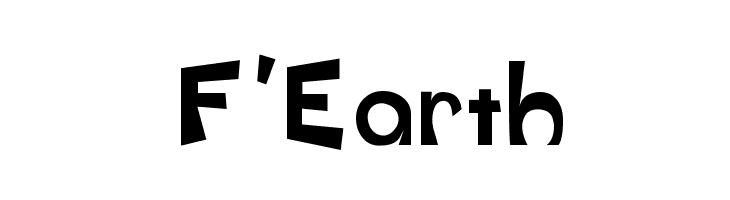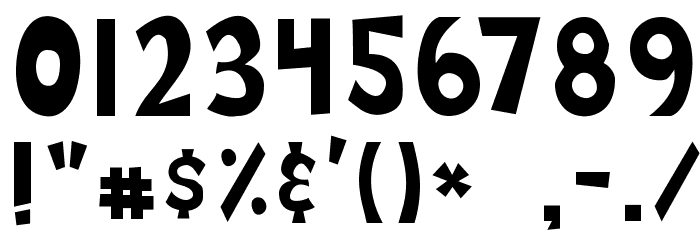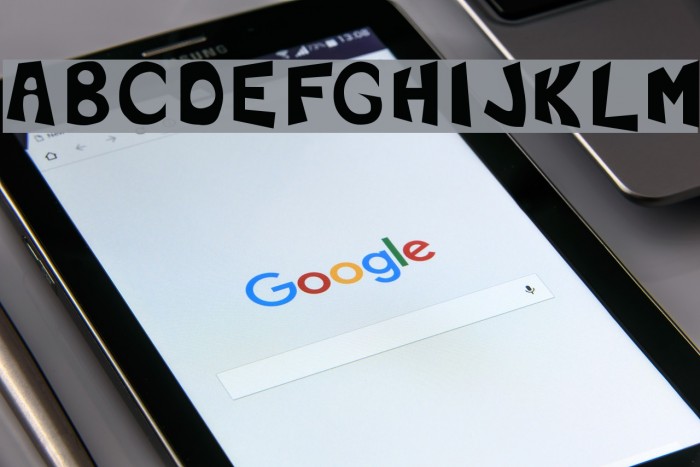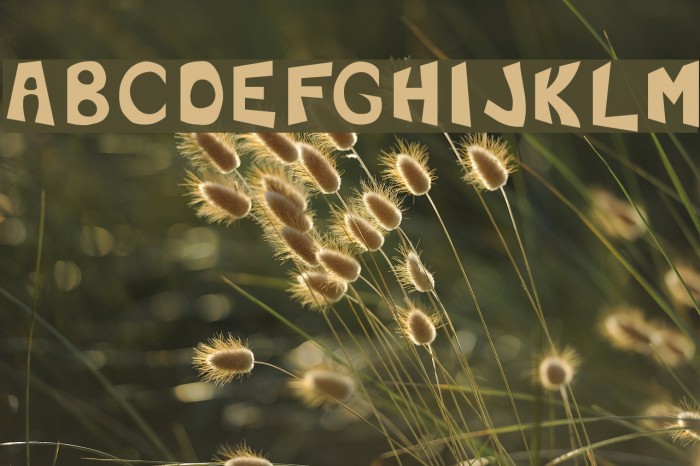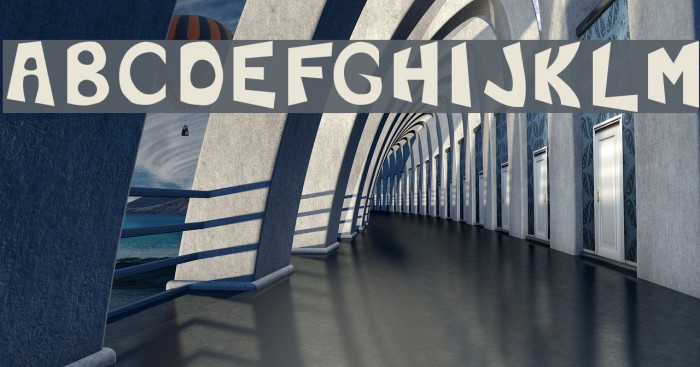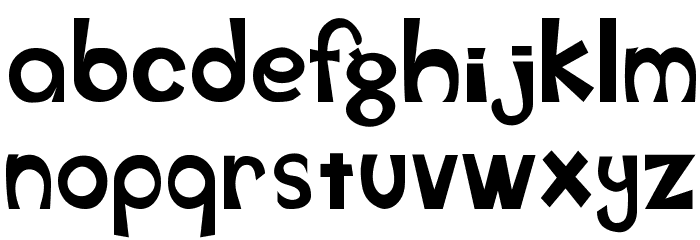
F'Earth Font
This font features a playful and bold design with a quirky, uneven style that gives it a lively and dynamic appearance. The characters are slightly irregular, with varying stroke widths and unique shapes that add a sense of movement and energy. The uppercase letters are particularly bold and eye-catching, while the lowercase letters maintain a whimsical charm. The numerals and special characters follow the same playful aesthetic, making the font suitable for creative and informal projects. Its distinctive style makes it stand out, perfect for capturing attention in headlines or logos.
A playful, bold font with quirky, uneven characters and a lively style.
• Proposed Projects: Ideal for children's books, playful branding, event posters, and creative logos.
• Category: Decorative/Display
• Overall Style: Playful, Quirky, Dynamic
• Use Case: Headlines, Logos, Posters